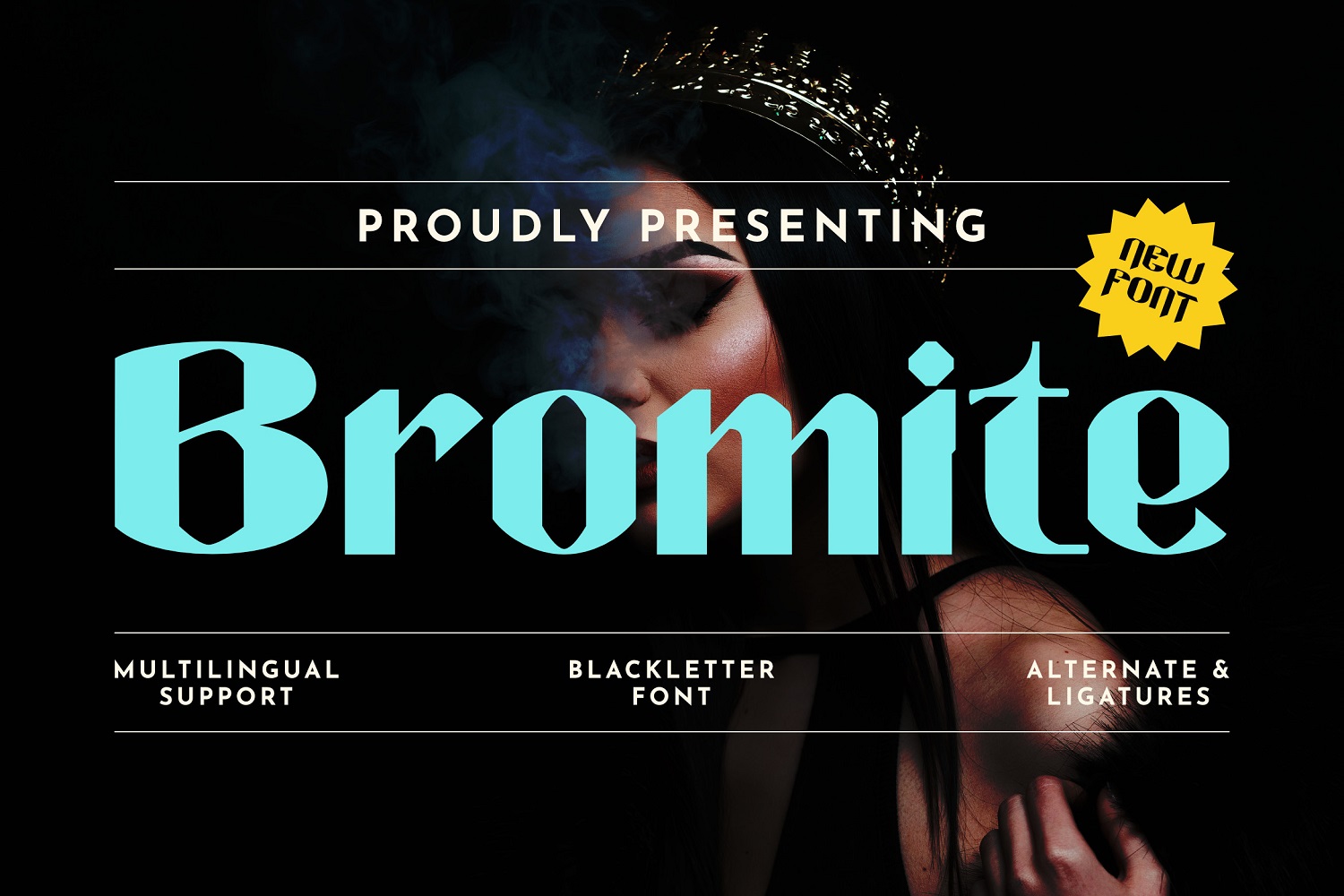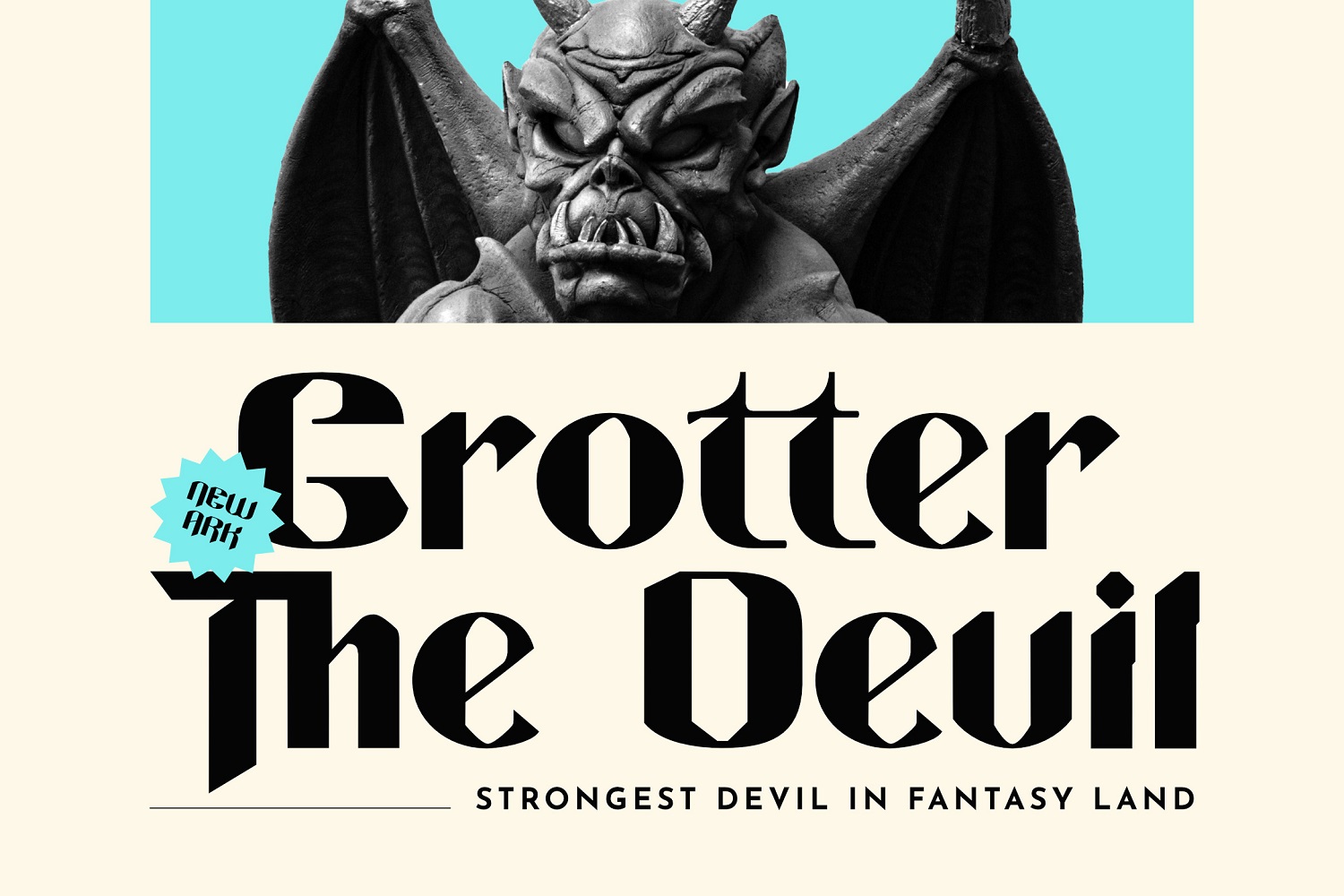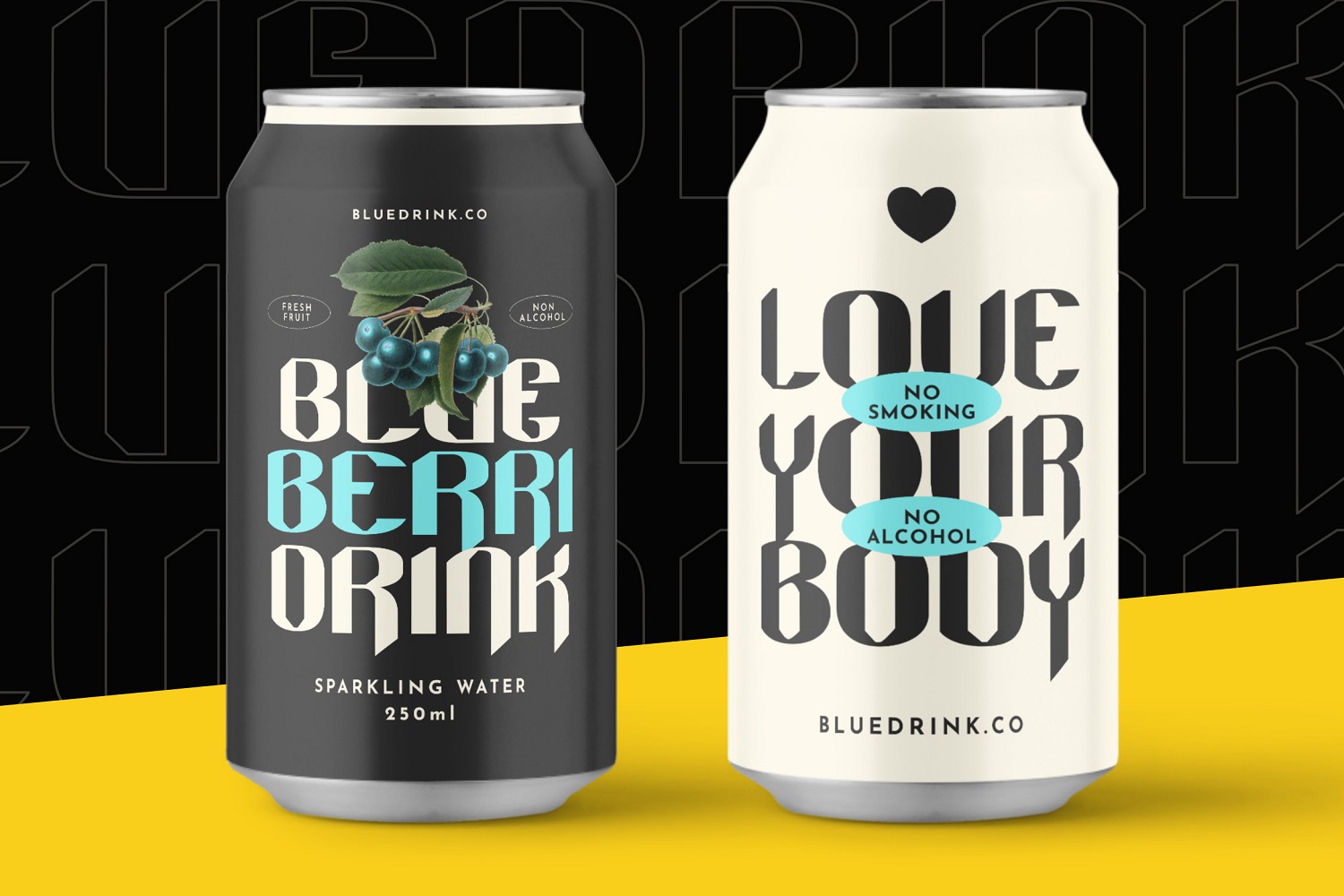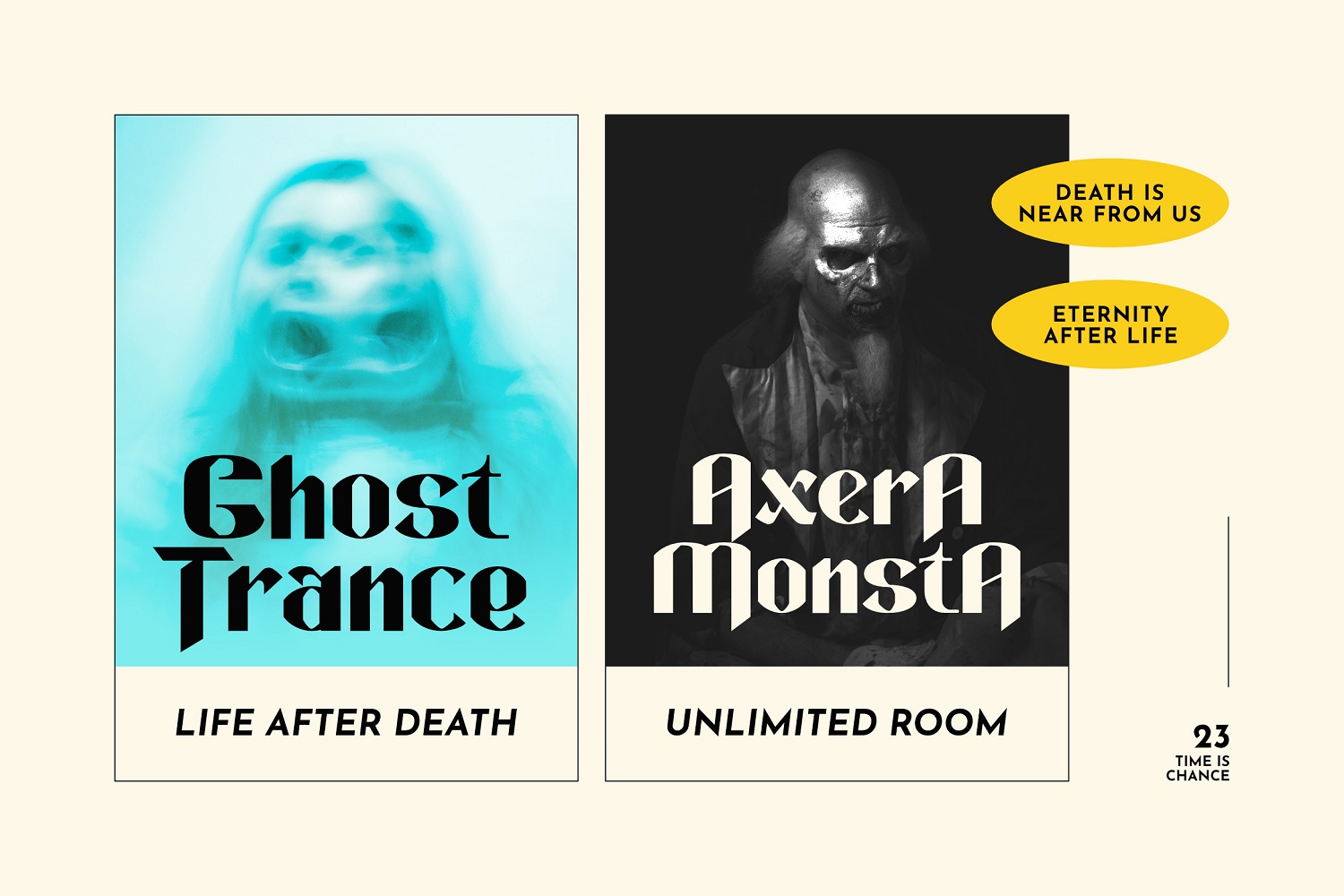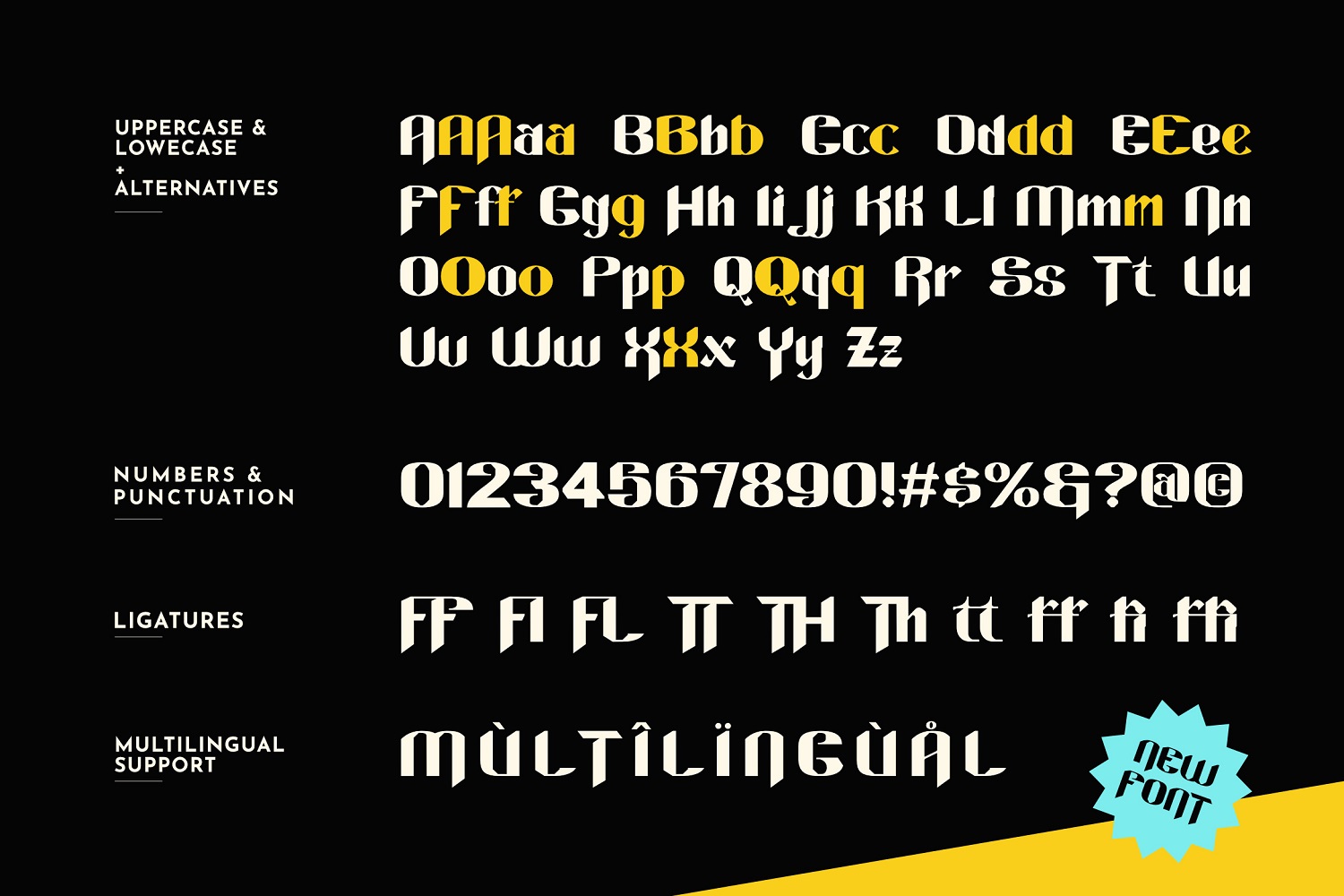
Bromite is a modern blackletter-inspired display font with a unique blend of elegance and edge. Its bold, sharp cuts are softened by fluid curves and balanced proportions, resulting in a highly stylized yet readable typeface. With its powerful presence and fashion-forward feel, Bromite is perfect for branding, packaging, music artwork, editorial layouts, and lifestyle advertising that demands a daring and expressive visual identity.
The font comes complete with uppercase and lowercase letters, ligatures, alternates, numbers, punctuation, and multilingual support. Its versatility makes it ideal for both modern gothic aesthetics and retro-futuristic vibes, seamlessly adapting to edgy beverage labels, poster headlines, or avant-garde digital content.
Bromite